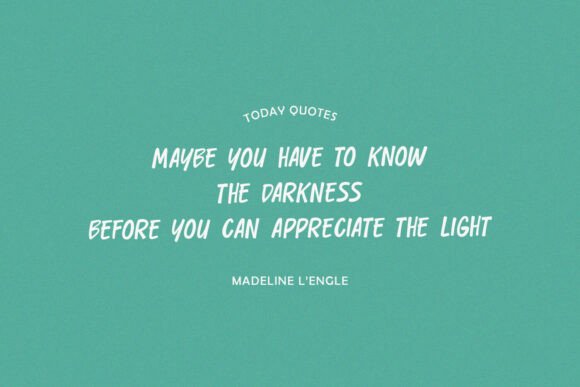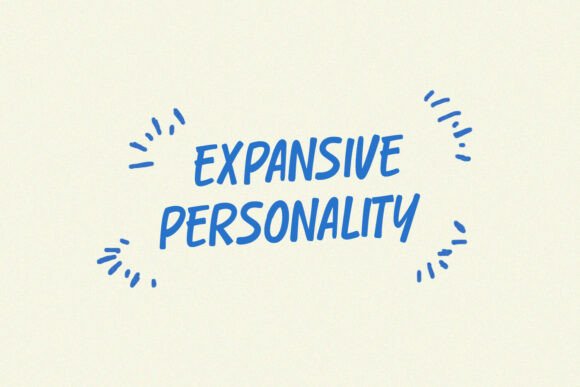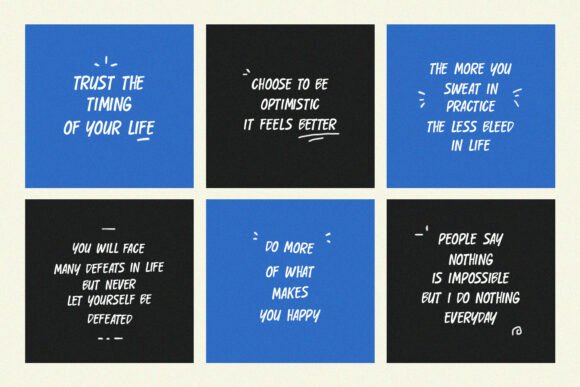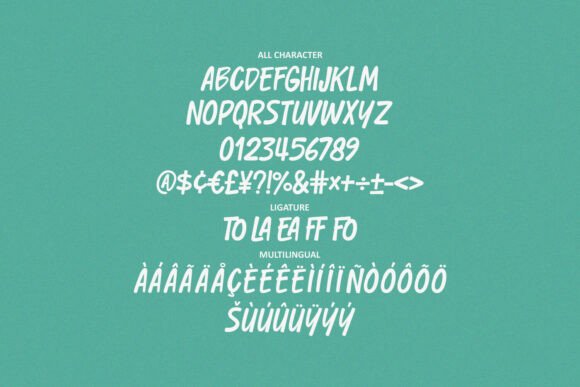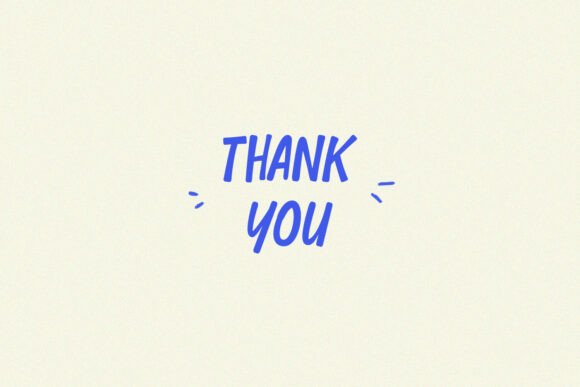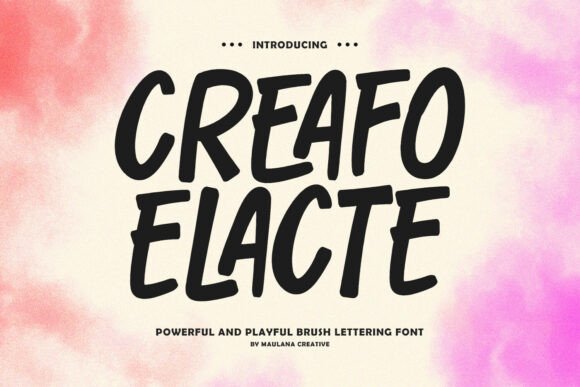
Unleash Your Creativity with Creafo Elacte Font: A Powerful and Playful Brush Lettering Typeface
In the world of design, fonts play a crucial role in conveying the tone and personality of a brand or project. If you’re looking for a typeface that exudes energy, confidence, and a touch of playfulness, look no further than the Creafo Elacte font. This powerful and vibrant display font is designed to inject life into your designs, making it perfect for attention-grabbing headlines, dynamic product packaging, sports-themed apparel, and impactful social media graphics.
The Unique Characteristics of Creafo Elacte Font
Creafo Elacte is a brush lettering font that captures the authentic texture and momentum of a thick brush stroke. The result is confident, slightly irregular lines that feel genuinely spontaneous and full of life. The strong, condensed letterforms of the Creafo Elacte font are highly legible, making it an excellent choice for designs that require a bold and youthful aesthetic.
One of the standout features of the Creafo Elacte font is its rugged yet fun aesthetic. This versatile edge makes it perfect for projects that need a powerful, youthful, and slightly retro vibe. Whether you’re designing a logo, creating social media graphics, or packaging a product, the Creafo Elacte font is sure to make a statement.
Key Features of Creafo Elacte Font
- All-caps letters: The Creafo Elacte font includes all-caps letters, making it perfect for attention-grabbing headlines and titles.
- Numerals and punctuation: The font includes numerals and punctuation, ensuring that your designs are complete and professional.
- Full suite of glyphs: The Creafo Elacte font includes a full suite of glyphs, giving you the flexibility to create unique and expressive designs.
Creafo Elacte font is perfect for designers and crafters who want to add a touch of personality to their projects. Whether you’re creating digital designs or handmade crafts, this font is sure to inspire your creativity. The Creafo Elacte font is also a great choice for designers who want to create unique and eye-catching designs that stand out from the crowd.
Tips for Using Creafo Elacte Font
Here are some tips for using the Creafo Elacte font in your designs:
- Use it for headlines: The Creafo Elacte font is perfect for attention-grabbing headlines and titles.
- Experiment with colors: The font’s bold and playful aesthetic makes it perfect for experimenting with different colors and textures.
- Pair it with other fonts: The Creafo Elacte font pairs well with other fonts, making it easy to create unique and interesting typography combinations.
In conclusion, the Creafo Elacte font is a powerful and playful brush lettering typeface that is sure to inject life into your designs. Its unique characteristics, versatility, and key features make it perfect for designers and crafters who want to add a touch of personality to their projects. With its bold and youthful aesthetic, the Creafo Elacte font is sure to make a statement in any design.